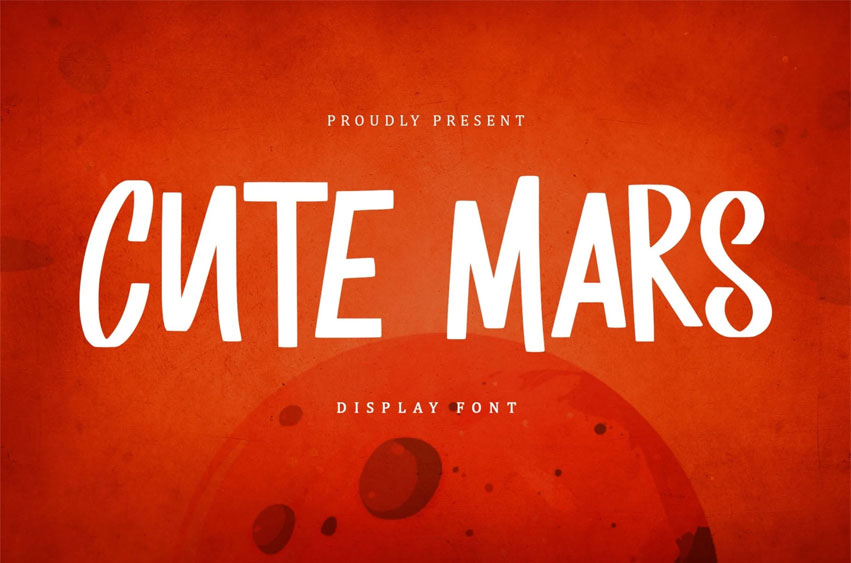
Cute Mars Font
Cute Mars Font is a handwritten font. This versatile script font has a unique and broad style. Guaranteed to add the best results to your design project work.
• Support multilingual; ä ö ü Ä Ö Ü ß ¿ ¡
• Lowercase and uppercase letters